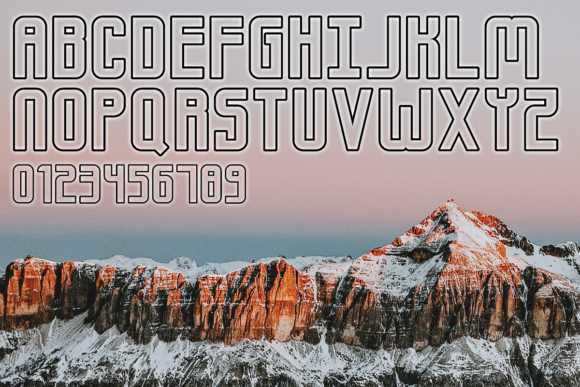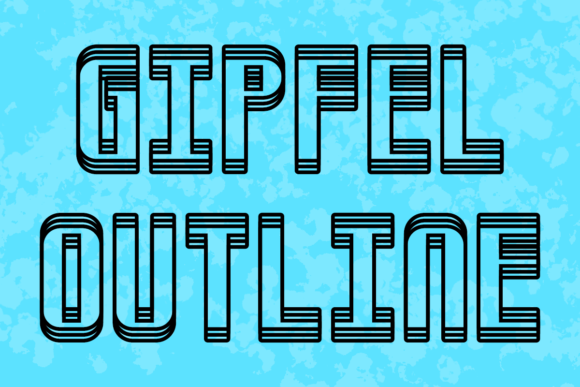
The Designer’s Delight: Gipfel Outline Font
I’ll never forget the time I was working on a project for a client who wanted a bold, eye-catching font to make their brand stand out. I scoured the internet for hours, trying out font after font, but nothing seemed quite right. That was until I stumbled upon Gipfel Outline. This stunning display font has been a game-changer for me ever since, and I’m excited to share its awesomeness with you! 😊
- ✨ Bold and Authentic: Gipfel Outline’s chunky characters exude confidence and style, making it perfect for headlines, titles, and statements.
- ✅ Versatile: This font’s simplicity allows it to fit seamlessly into a wide range of designs, from modern and edgy to playful and creative.
- 💡 Legible: Despite its bold nature, Gipfel Outline remains surprisingly legible, even at smaller sizes.
While Gipfel Outline is an amazing font, it’s not without its quirks. For example:
- 🤔 Limited use in body text: Due to its bold nature, Gipfel Outline might not be the best choice for lengthy paragraphs or body text.
- ⚠️ Careful with kerning: As with any font, be mindful of kerning when using Gipfel Outline, especially when pairing it with other fonts.
The Designer Inspiration Behind Gipfel Outline
Gipfel Outline was designed with the intention of creating a bold and authentic display font that would make a statement. The designer aimed to craft a font that would be versatile and easy to read, while also exuding confidence and style. Although the designer’s background and inspiration are shrouded in mystery, it’s clear that their goal was to create a font that would inspire creativity and add a touch of personality to any design.
Q: What type of projects is Gipfel Outline best suited for?
A: Gipfel Outline is perfect for projects that require a bold and eye-catching font, such as headlines, titles, posters, and branding materials.
Q: Can I use Gipfel Outline for body text?
A: While Gipfel Outline is legible, it’s not ideal for lengthy paragraphs or body text due to its bold nature. Instead, use it for headings and titles to add emphasis and style.
Q: Does Gipfel Outline support OpenType features?
A: Yes, Gipfel Outline supports OpenType features, glyphs, and stylistic alternates, allowing you to add more creativity and personality to your text.